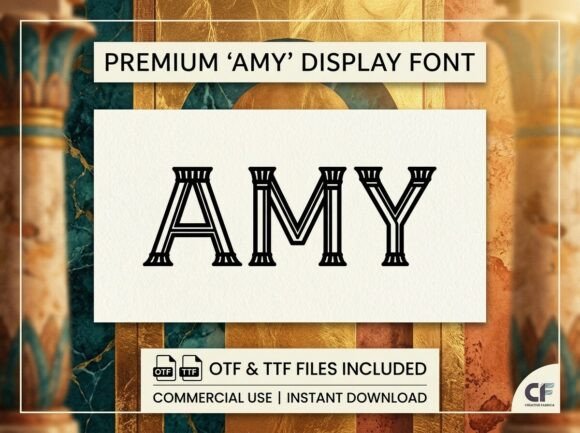
Discover the Timeless Elegance of Amy Font
As a designer, I’ve had my fair share of font hunting struggles. I recall working on a project for a historical fiction book cover, spending hours searching for the perfect typeface that could transport readers to ancient civilizations. That’s when I stumbled upon Amy, a majestic display font that instantly captured my attention. In this article, I’ll share my experience with Amy, its unique features, and how to make the most of this stunning font.
A Personal Encounter with Amy
Working on a historical fiction book cover, I needed a font that would evoke the grandeur of ancient Greece and Rome. After hours of searching, I discovered Amy, and it was love at first sight! The font’s unique letterforms, inspired by classical Egyptian and Greco-Roman columns, immediately resonated with my project’s theme. The vertical fluting and decorative capitals forming the structure of every character added an extra layer of sophistication.
An Honest Review of Amy Font
What I Love About Amy ✨
• ✅ Majestic display typeface with an “architectural-and-antique” soul
• ✅ Unique letterforms inspired by classical Egyptian and Greco-Roman columns
• ✅ Vertical fluting and decorative capitals for added elegance
• ✅ Rhythmic geometric lines and historic aesthetic
While Amy is an exceptional font, there are a few things to keep in mind:
• ⚠️ Limited use of lowercase letters, as the font is optimized for display purposes
• ⚠️ Some characters may require manual kerning for optimal spacing
• 🤔 Limited availability of stylistic alternates, but the existing ones are well-crafted
The Backstory of Amy Font
Amy font was designed with the intention of capturing the essence of ancient civilizations. The designer’s inspiration came from the grandeur of classical Egyptian and Greco-Roman architecture, with a focus on vertical fluting and decorative capitals. The result is a majestic display font that evokes a sense of history and sophistication.
Q: What is the primary use of Amy font?
A: Amy font is designed for display purposes, making it ideal for titles, headings, and captions.
Q: Is Amy font suitable for body text?
A: While Amy font is stunning, it’s optimized for display purposes. For body text, consider using a more readable font.